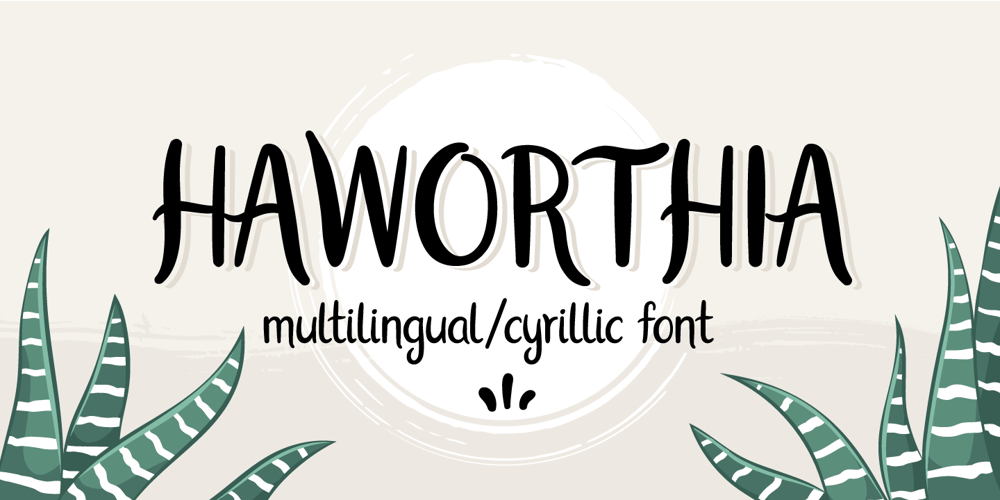
Haworthia Font Family was designed by Tatiana Kovaleva and published by Cmeree. Haworthia contains 1 styles and family package options. Haworthia is a handwritten font. Its shape is inspired by self-titled succulent plant – the font has long and a bit swirled endings.Haworthia provides multi-language support which includes cyrillic glyphs as well.